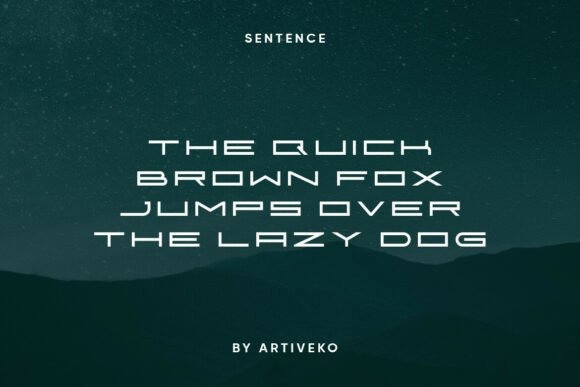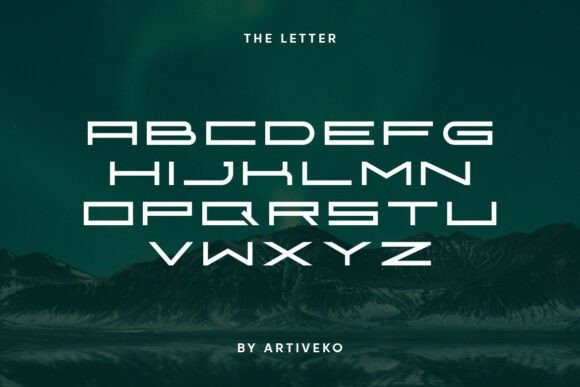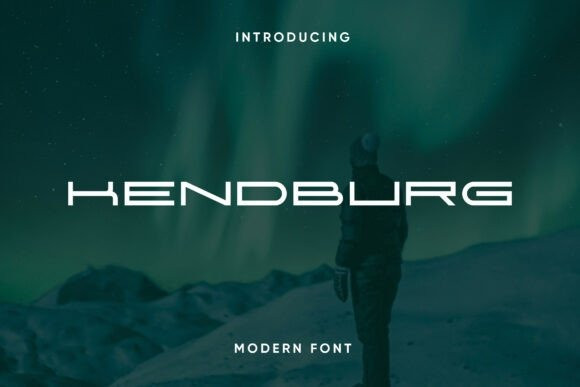
Kendburg Font
Kendburg Font is a confident and refined sans serif font that blends bold structure with sleek modernism. Designed with clarity and impact in mind, Kendburg features clean strokes, solid proportions, and a purposeful presence — perfect for branding, editorial design, headlines, logos, corporate identities, and professional packaging.